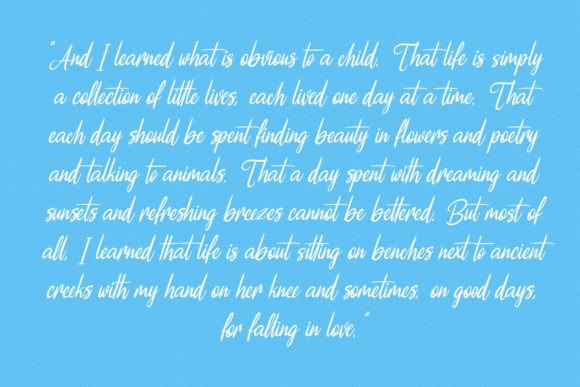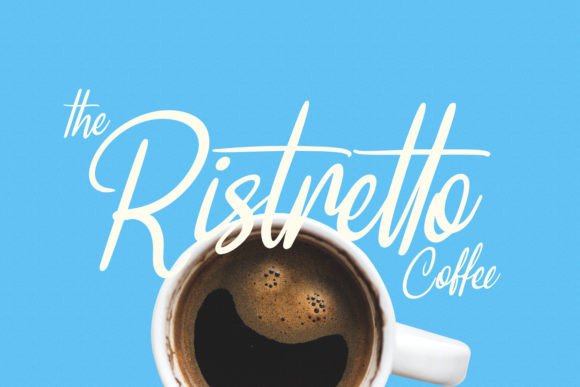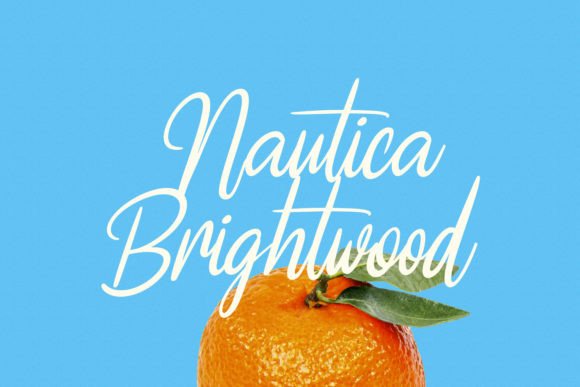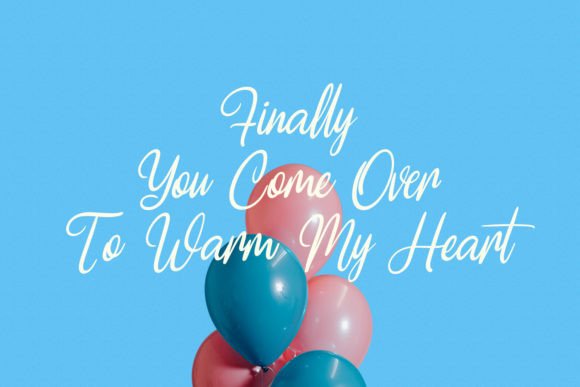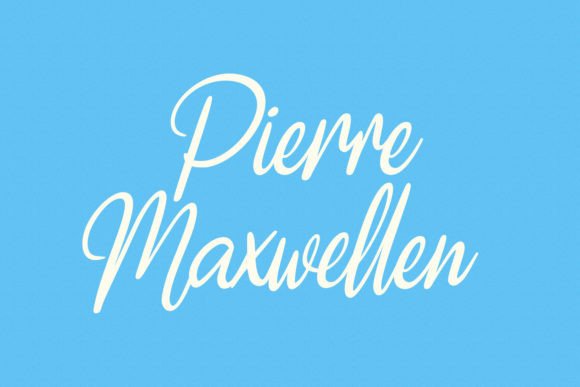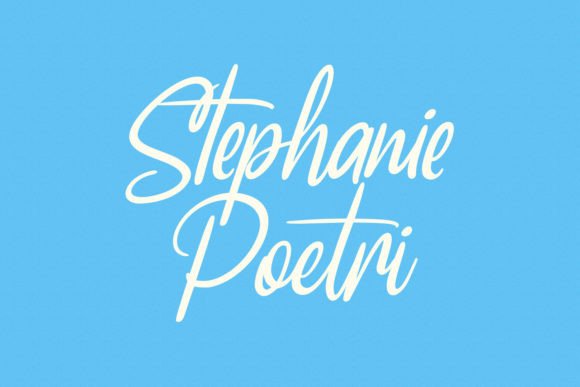
Frits Yello Font: Add a Playful Touch to Your Designs
Are you looking for a font that can add a casual and fun vibe to your designs? Look no further than Frits Yello Font! This script font is perfect for designers and crafters who want to give their projects a playful handwritten touch. In this article, we’ll explore the features and benefits of Frits Yello Font, and show you how to use it to take your designs to the next level.
What is Frits Yello Font?
Frits Yello Font is a beautiful script font that is designed to look like handwriting. It’s casual, fun, and perfect for a wide range of design projects. Whether you’re working on wedding invitations, thank you cards, quotes, greeting cards, logos, business cards, or any other design that needs a personal touch, Frits Yello Font is the perfect choice.
Features of Frits Yello Font
Frits Yello Font has several features that make it a great choice for designers and crafters. Some of its key features include:
- Playful and casual design: Frits Yello Font has a playful and casual design that is perfect for adding a personal touch to your projects.
- Handwritten look: The font is designed to look like handwriting, which gives it a unique and personal feel.
- Easy to read: Despite its casual design, Frits Yello Font is easy to read, which makes it perfect for use in a wide range of projects.
- Versatile: Frits Yello Font can be used in a wide range of projects, from wedding invitations to business cards.
Benefits of Using Frits Yello Font
There are several benefits to using Frits Yello Font in your designs. Some of the benefits include:
- Adds a personal touch: Frits Yello Font adds a personal touch to your designs, which can help to make them more engaging and effective.
- High-quality design: The font has a high-quality design that is perfect for use in professional projects.
Project Ideas for Frits Yello Font
Frits Yello Font is perfect for a wide range of projects. Here are some project ideas to get you started:
- Wedding invitations: Frits Yello Font is perfect for wedding invitations, as it adds a personal and romantic touch.
- Thank you cards: The font is also great for thank you cards, as it adds a casual and friendly touch.
- Quotes: Frits Yello Font is perfect for use in quotes, as it adds a playful and inspirational touch.
- Greeting cards: The font is great for use in greeting cards, as it adds a personal and festive touch.
- Logos: Frits Yello Font can also be used to create logos, as it adds a playful and memorable touch.
- Business cards: The font is perfect for use in business cards, as it adds a professional and personal touch.
Frits Yello Font is a beautiful script font that is perfect for designers and crafters who want to add a playful handwritten touch to their projects. With its casual and fun design, Frits Yello Font is perfect for a wide range of projects, from wedding invitations to business cards. Whether you’re looking to add a personal touch or create a professional-looking design, Frits Yello Font is the perfect choice.